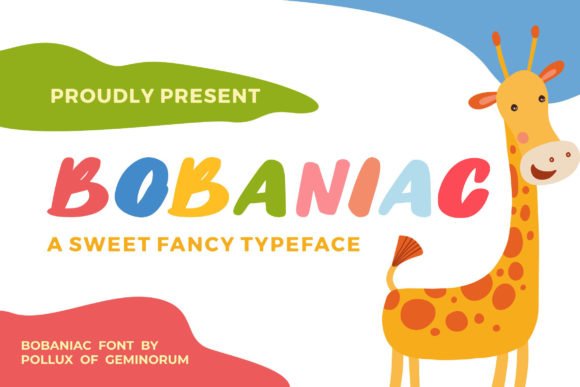
Introduction to Bobaniac Font
Bobaniac is a cute and colorful display font.
It embodies playfulness and authenticity and is the perfect choice for any children activity or school project Add this chunky lettered font to your designs and notice how it makes them come alive.
Why Choose Bobaniac Font?
Bobaniac Font offers exceptional quality and versatility, making it a valuable addition to your design toolkit. Whether you’re creating for personal projects or commercial use, Bobaniac Font delivers professional results.